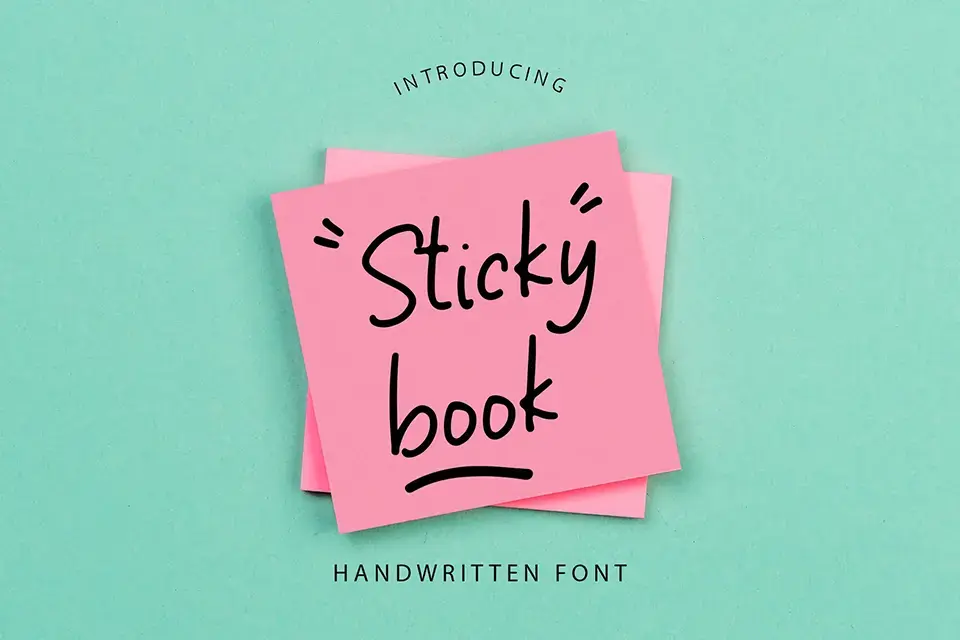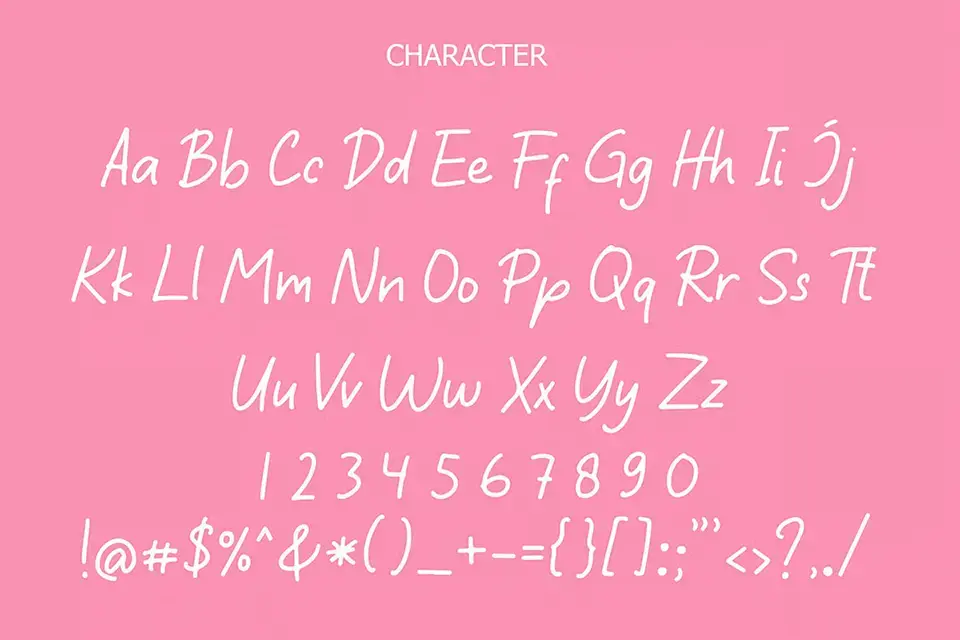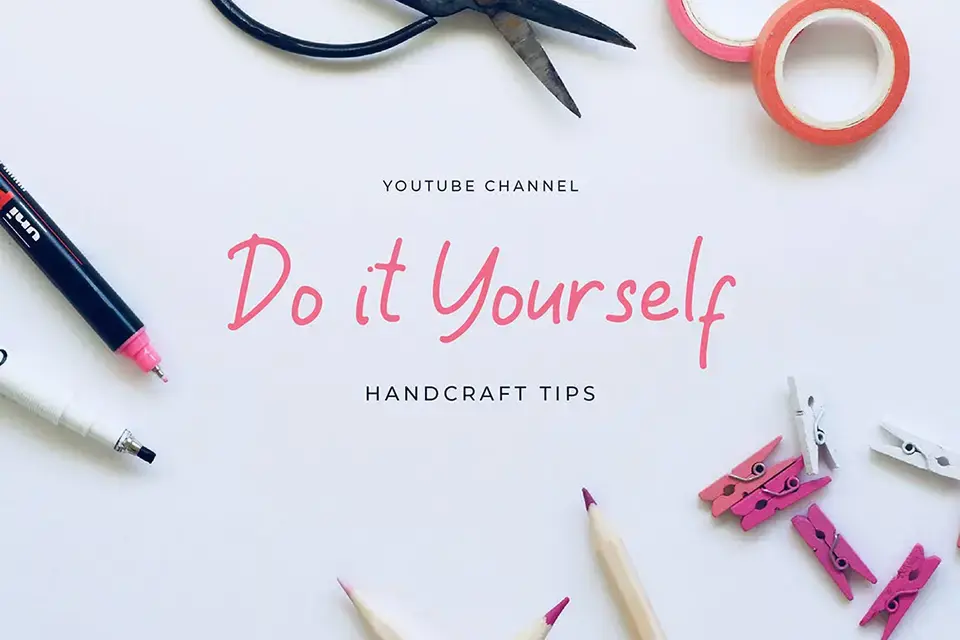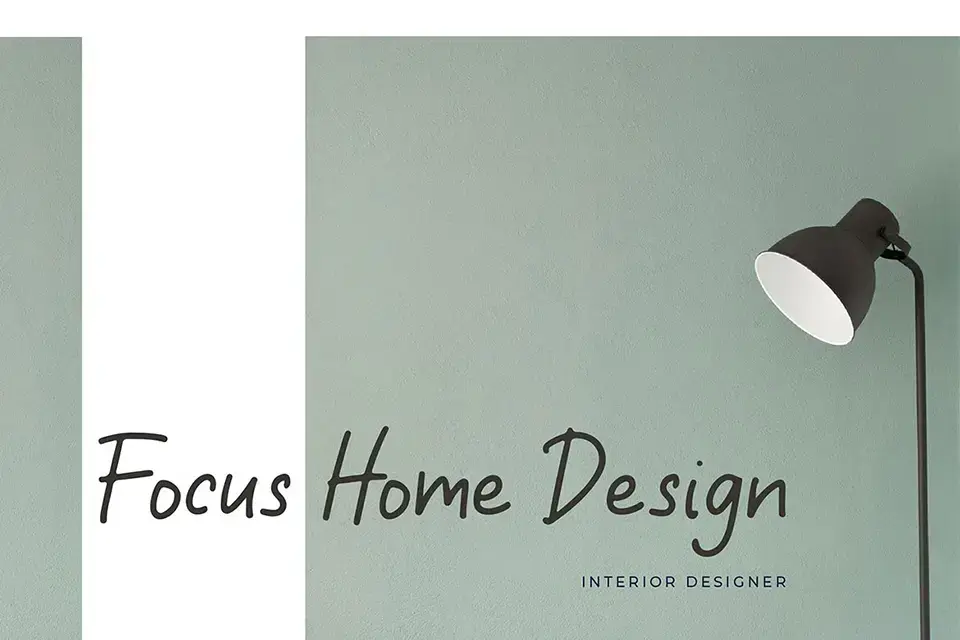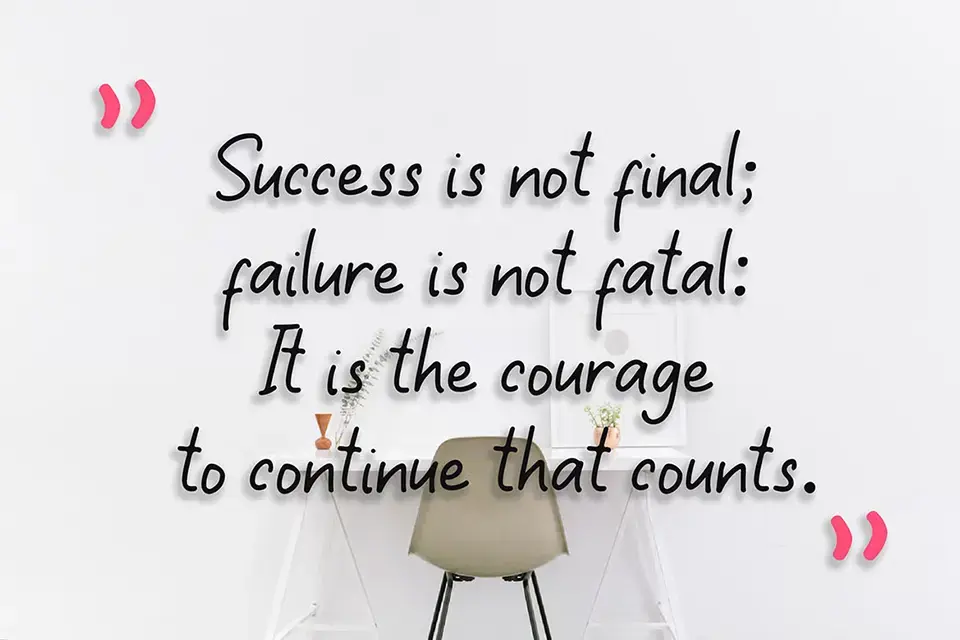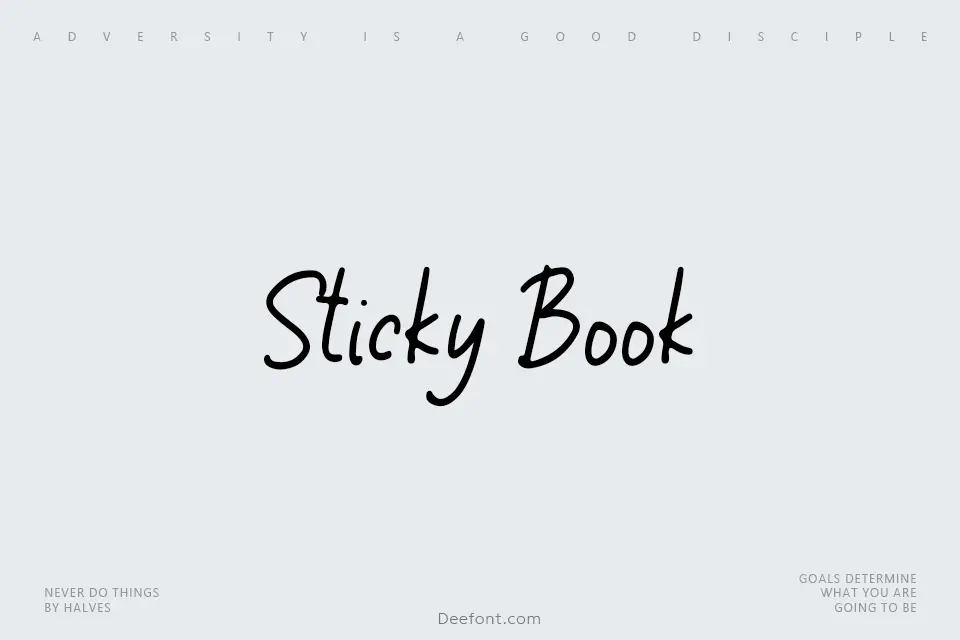
Sticky Book Font
Sticky Book is a charming and modern handwritten font designed by Denny Subagja. Its casual, organic strokes capture the authentic look of quick marker notes, creating a playful atmosphere. This typeface is ideal for social media graphics, greeting cards, school projects, and informal branding that needs a personal, handcrafted touch.